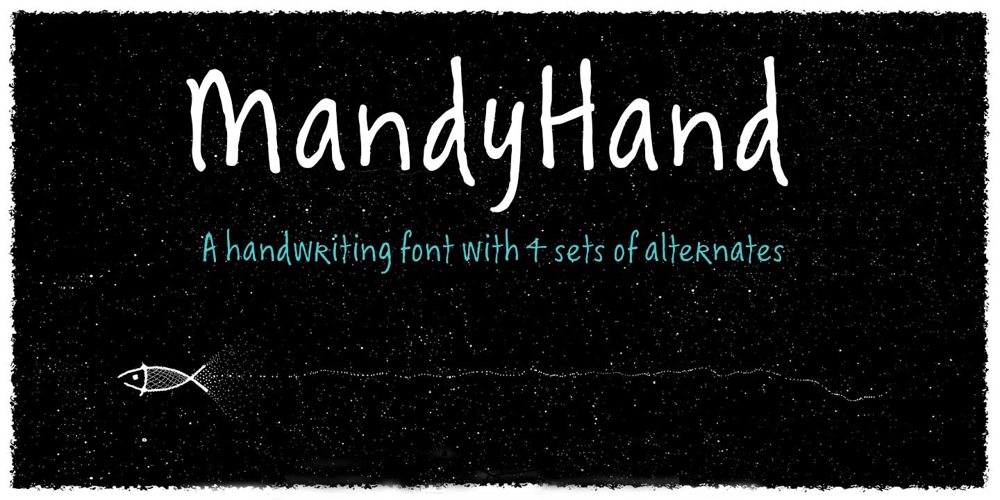
Mandy Hand
Mandy Hand font
Mandy Hand Font Family was designed by Wayne Thompson and published by Australian Type Foundry. Mandy Hand contains 1 styles and family package options. MandyHand is a lighthearted handwriting font with a casual tone. It contains four sets of alternates to accurately imitate the variations in handwriting, with OpenType code to randomise repeat letters. This font also contains full language support for all Latin languages including all European langauges.